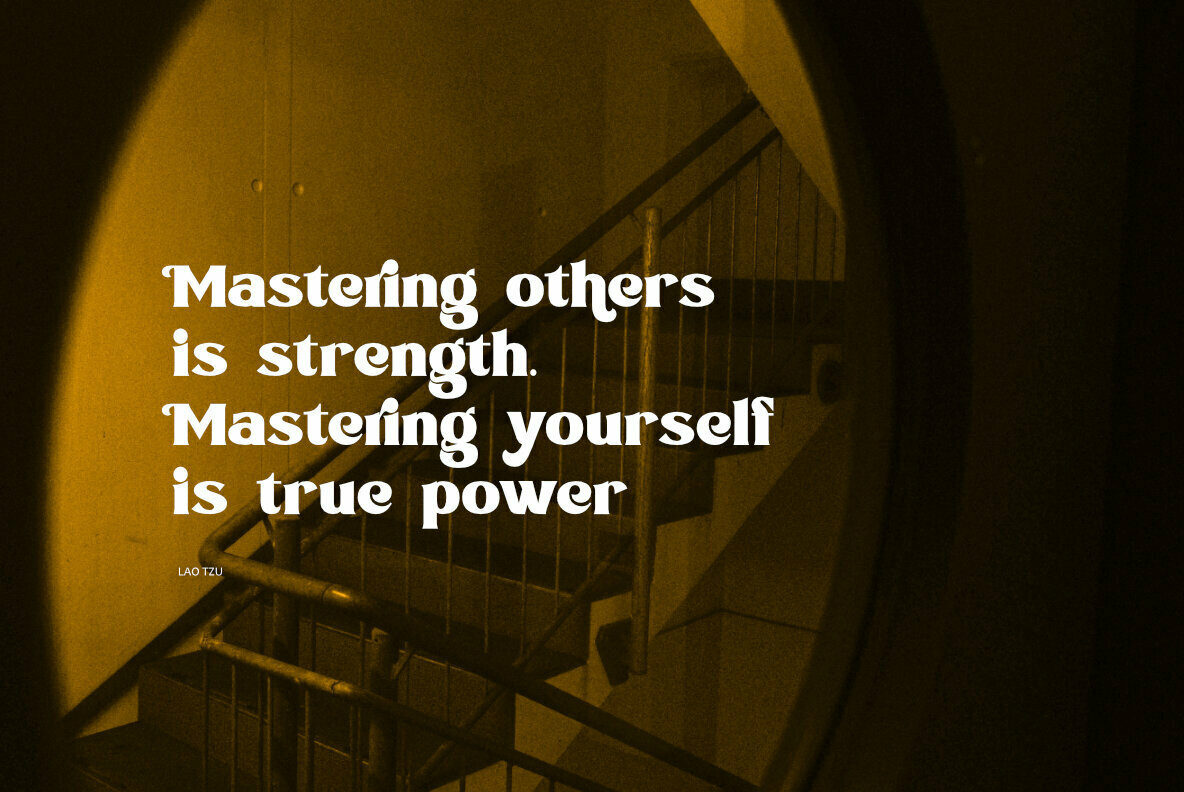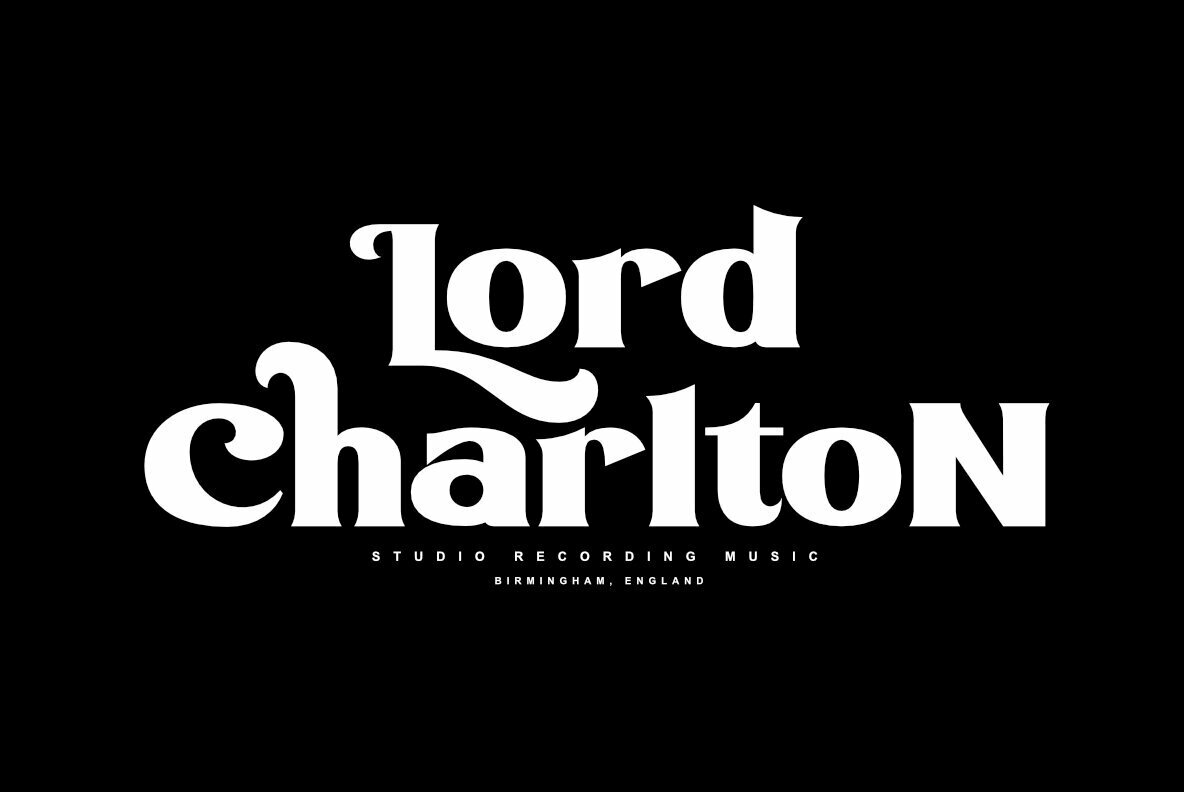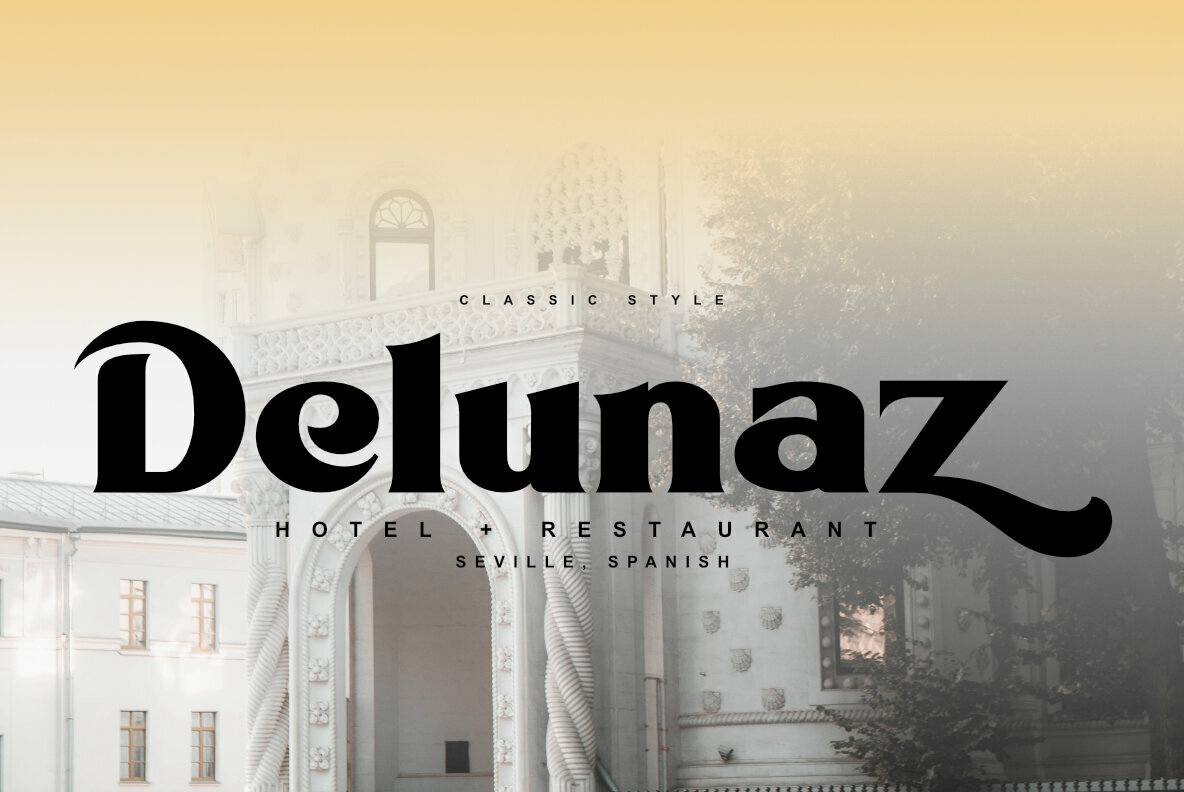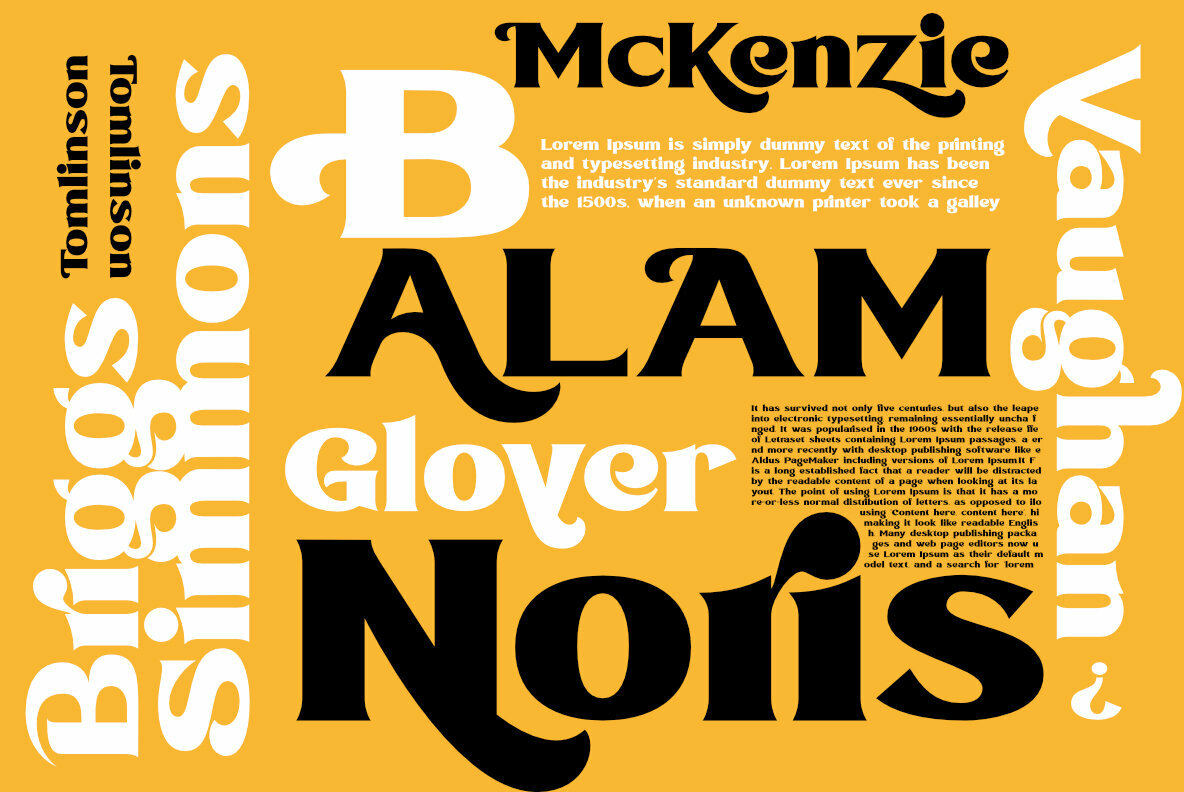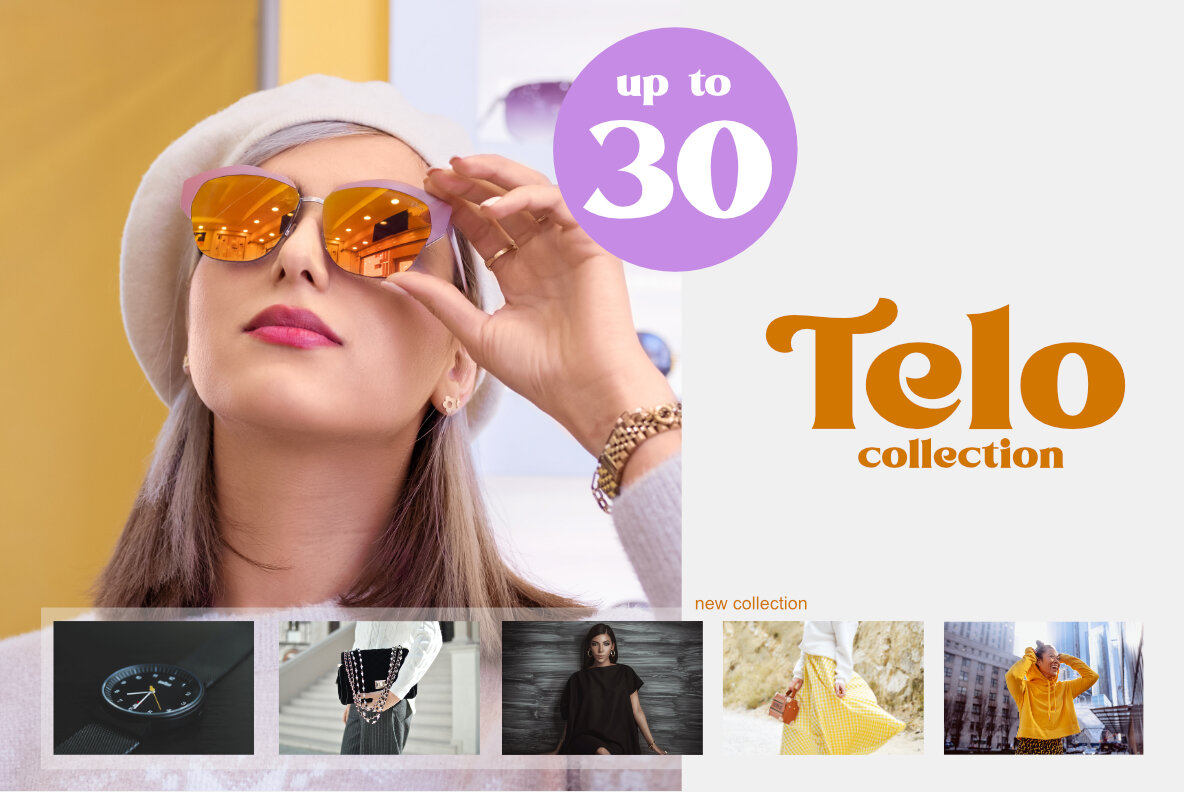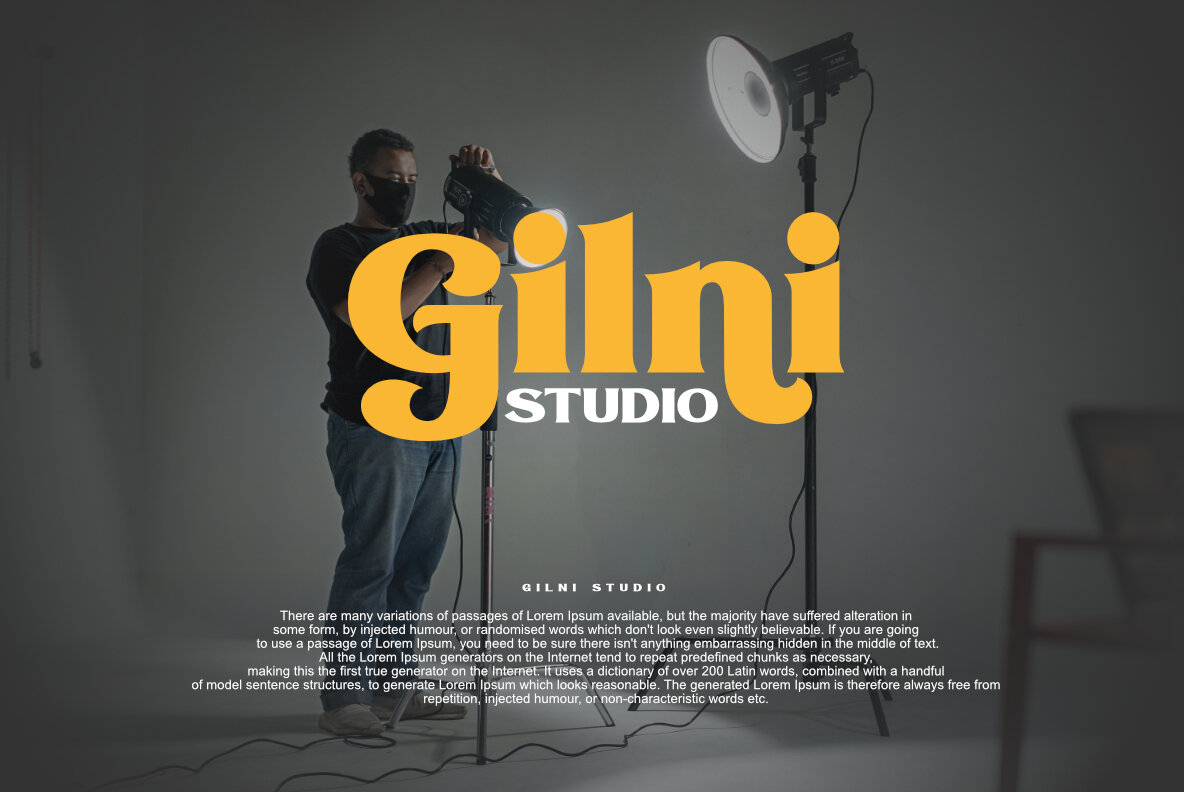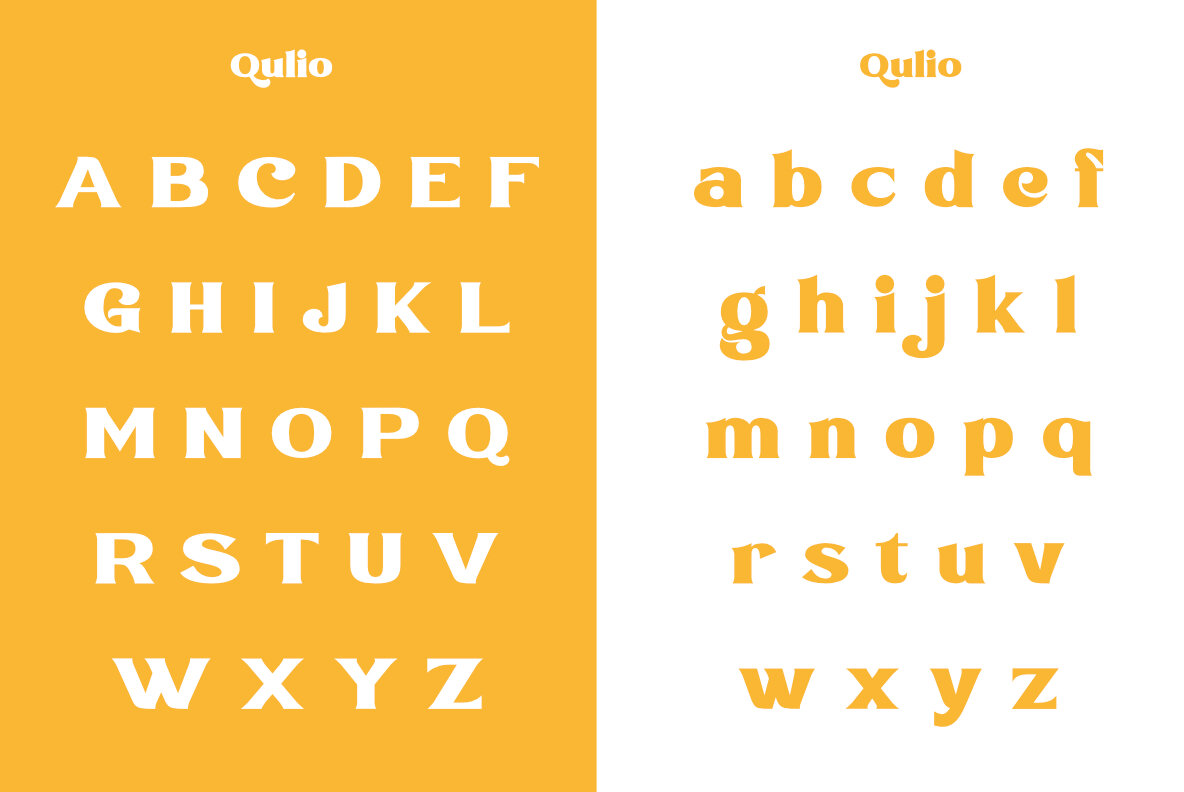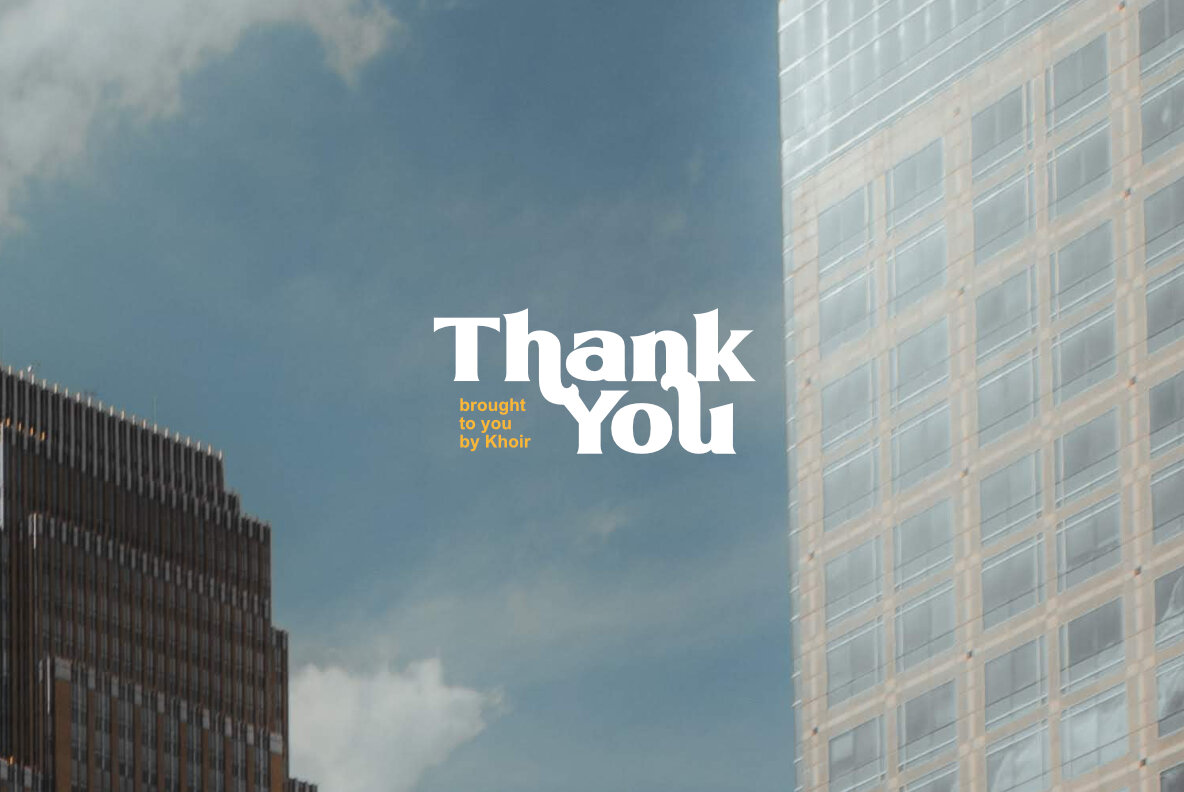
Qulio Font
Qulio
Qulio stands as a striking serif font, merging classic elements with a contemporary twist to offer an original aesthetic. Its bold presence and groovy sensibility make it an ideal choice for projects that require a modern vintage appeal. Discover the versatility of Qulio as it seamlessly integrates into various design projects, from logos to quotes and greeting cards. Its bold character and alternative styles provide the flexibility to craft distinctive designs.Qulio: Bold Serif With Groovy Flair